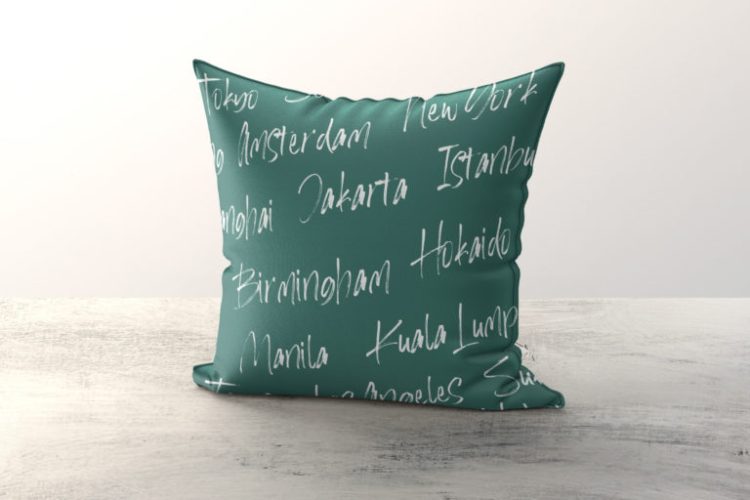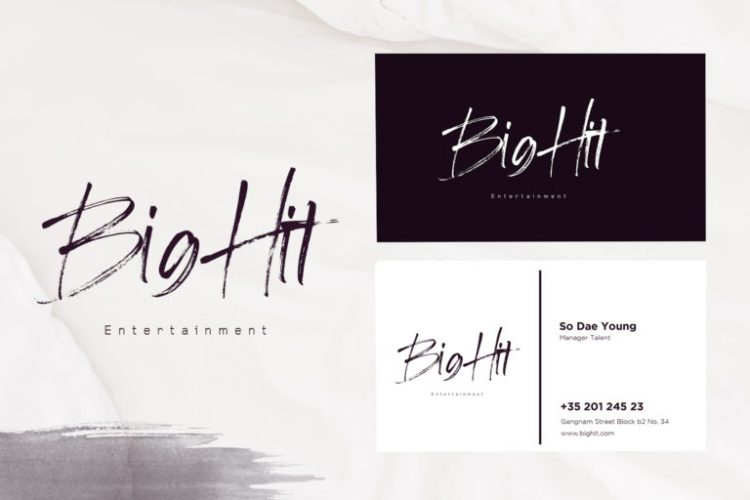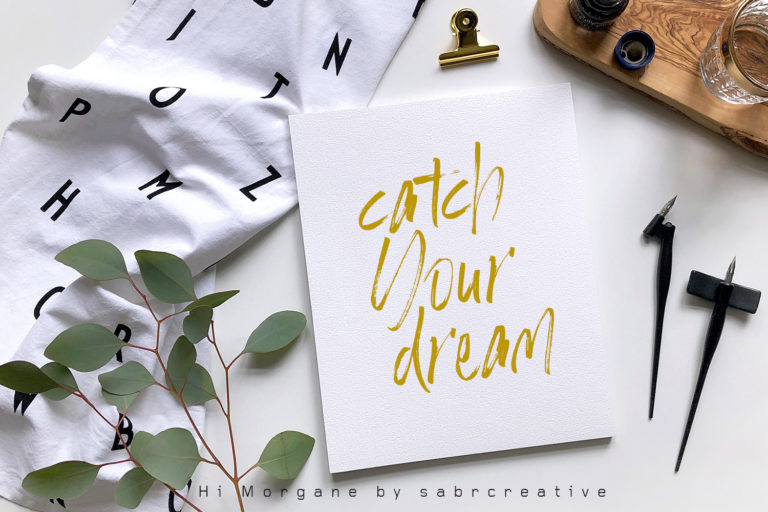
Hi Morgane Font
Every great café, food brand, or artisan business has a visual voice — and the most memorable ones speak with the raw, expressive energy of real human hands. Hi Morgane Font is that voice: a bold, hand-painted brush typeface with the authentic energy of expert brush lettering, built for brands that want to stand out with genuine creative confidence.
Hi Morgane earns its premium brush font reputation through the exceptional quality of its stroke work. The letterforms carry real brush texture — genuine bristle separation, organic ink pooling at stroke endings, and the kind of confident pressure variation that only comes from actual brush-on-paper experience. Each character has been drawn with deliberate boldness: thick main strokes that command attention, with dynamic thin connecting strokes that add movement and energy to every word. The overall effect is of confident, artisanal expertise — this is a font made by someone who knows exactly what they’re doing.
Independent café owners and specialty coffee brands use Hi Morgane for coffee shop branding that immediately communicates artisanal quality and creative individuality — the visual equivalent of single-origin beans and handcrafted brewing. Artisan food labels, craft brewery packaging, specialty food market branding, and farmers’ market vendor identity all benefit from Hi Morgane’s authentic, hand-crafted personality. Bold logo designers and brand identity specialists working with food entrepreneurs, hospitality businesses, and independent retail brands find Hi Morgane creates brand marks with instant memorability and genuine character.
The font also excels in social media content creation for food brands, rustic signage for events and pop-up shops, craft packaging for handmade goods, and anywhere that authentic artisanal quality needs to be communicated through typography alone.